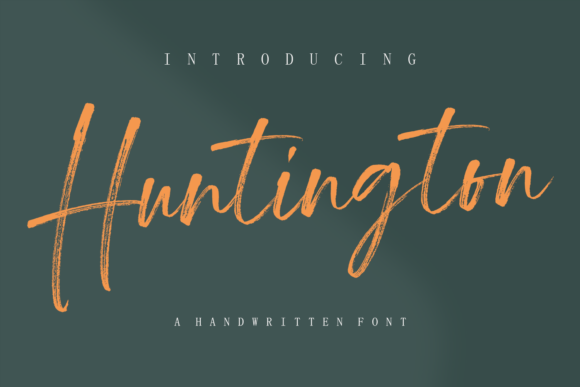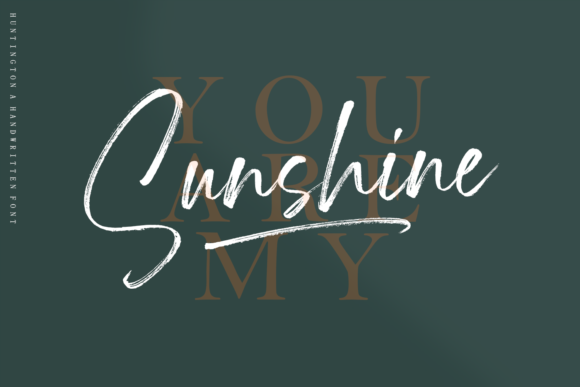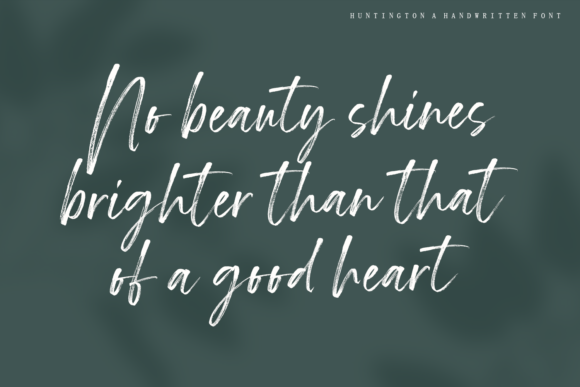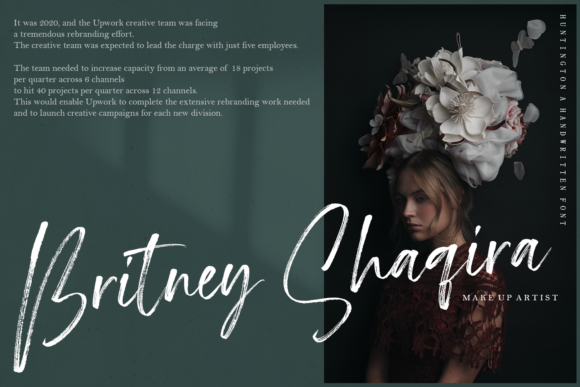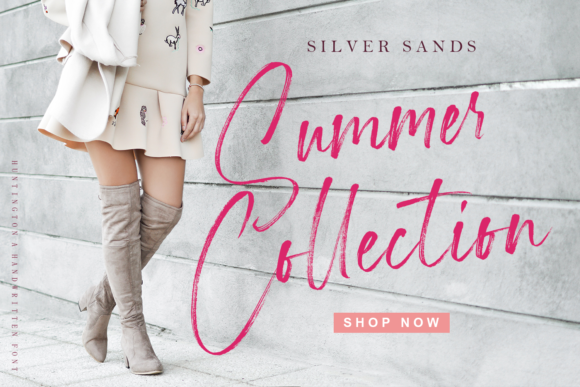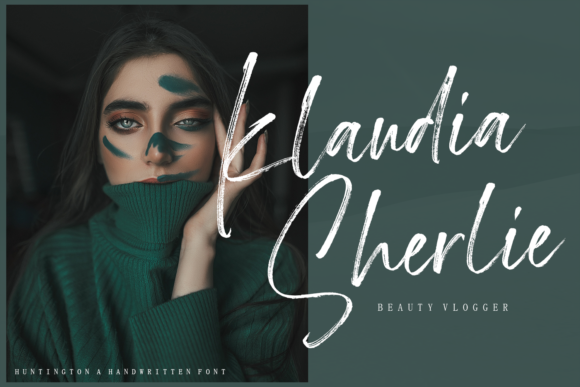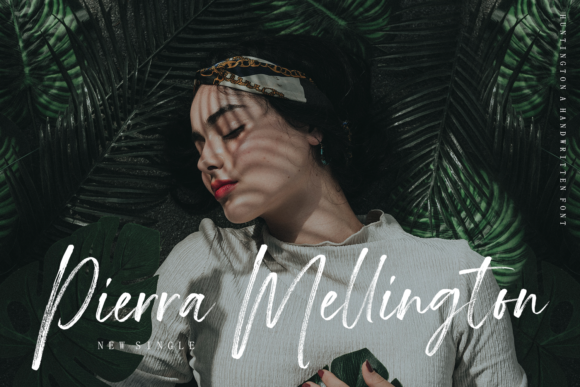
When Handwritten Style Meets Creative Genius
Have you ever stared at a blank canvas, feeling the weight of a project’s expectations on your shoulders? You know, that moment when the blank page seems to scream at you to create something truly special? For designers, this is a familiar feeling – and one that requires a dash of creativity and a pinch of inspiration. It was in this exact moment that the Huntington Font was born, designed to capture the essence of handwritten elegance and sophistication.
The Huntington Font is a versatile, unique handwritten font that’s perfect for a wide range of projects, from wedding invitations and social media graphics to logos, branding, and album covers. Its value lies in its ability to convey a personal touch and add a human element to any design, making it a valuable asset for designers looking to elevate their work.
Huntington Font Key Features
- Unique Characteristics: The Huntington Font features a unique blend of classic and modern elements, with intricate details and subtle flair.
Huntington Font Review
The Huntington Font is a beautiful, elegant script font that exudes sophistication and refinement ✨. Its flowing lines and subtle flourishes make it perfect for titles, headings, and any situation where a touch of luxury is needed. The font’s versatility is another major plus, as it works well in both print and digital applications.
Here are some of the Huntington Font’s key strengths:
- ✨ Elegant and sophisticated design
- ✨ Versatile and suitable for both print and digital use
- ✨ Beautiful flowing lines and subtle flourishes
- ⚠️ Limited character set – may not include all the characters you need for a specific project
- ⚠️ Not ideal for body text – the font’s elegance may get lost in large blocks of text
- ⚠️ May require some adjustments for optimal readability at small font sizes
Overall, I think the Huntington Font is a great choice for designers who need a touch of elegance and sophistication in their work. While it may have some limitations, its strengths far outweigh its weaknesses, making it a valuable addition to any font collection.
The Huntington Font is ideal for creating elegant, sophisticated designs. It’s commonly used in:
- Formal business presentations
- High-end product branding
- Magazine and book covers
To get the most out of the Huntington Font, use it in conjunction with other elegant fonts and design elements. Experiment with different font sizes, colors, and arrangements to create a unique and professional look.
Alternatives to Huntington Font
Playfair Display is an elegant, high-end serif font ideal for luxury brands and high-end publications. It features intricate details and a classic feel, making it perfect for headings and titles. Compared to Huntington Font, Playfair Display has a more refined and sophisticated look, while Huntington Font has a more vintage and distressed feel.
Lato is a modern sans-serif font suitable for corporate and creative projects. It’s highly legible and versatile, making it perfect for body text and headings. Lato has a cleaner and more minimalist look compared to Huntington Font, which has a more ornate and vintage feel.
Merriweather is a classic serif font ideal for academic and historical publications. It features a traditional and elegant feel, making it perfect for body text and headings. Compared to Huntington Font, Merriweather has a more formal and timeless look, while Huntington Font has a more relaxed and vintage feel.